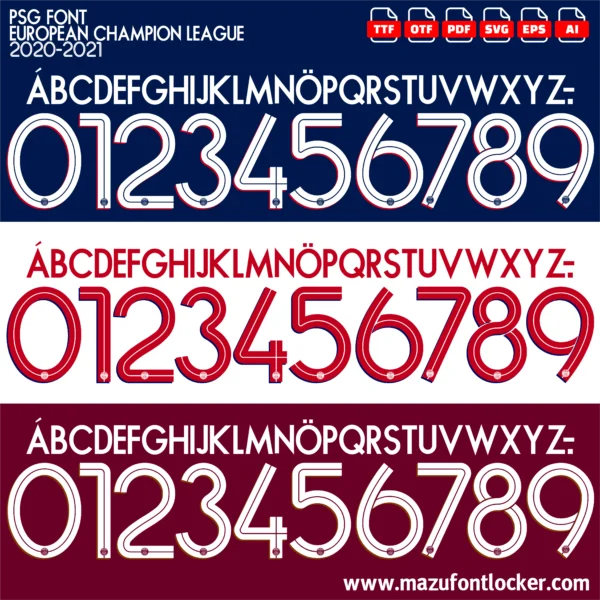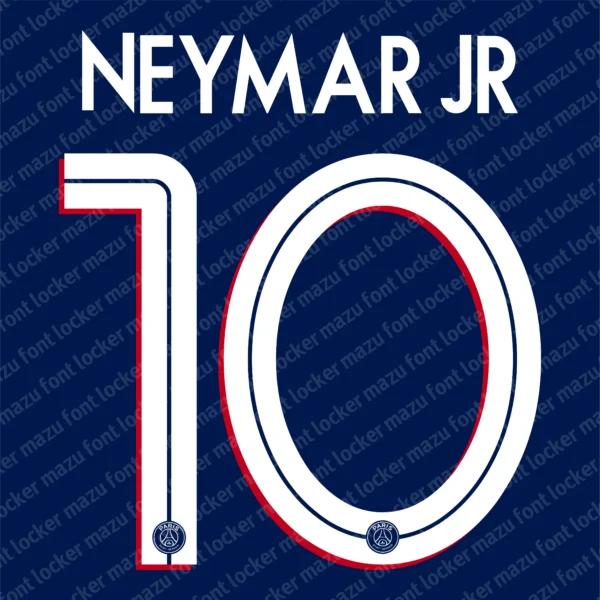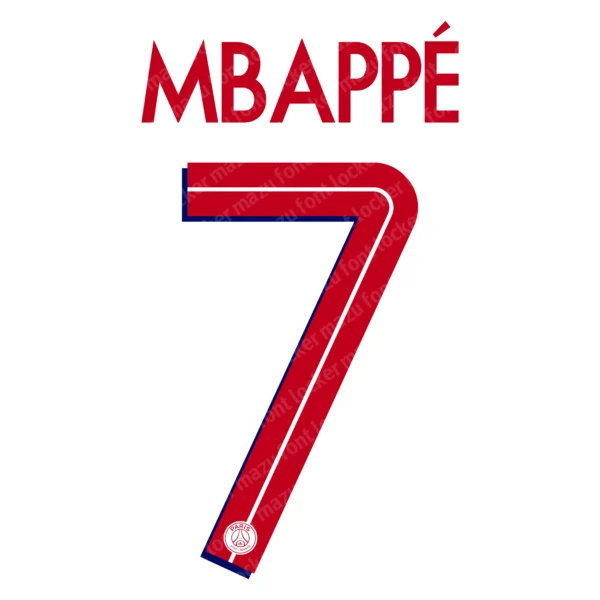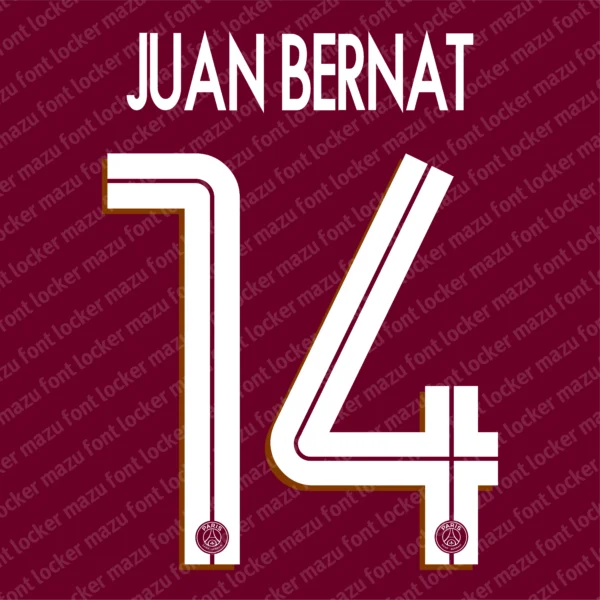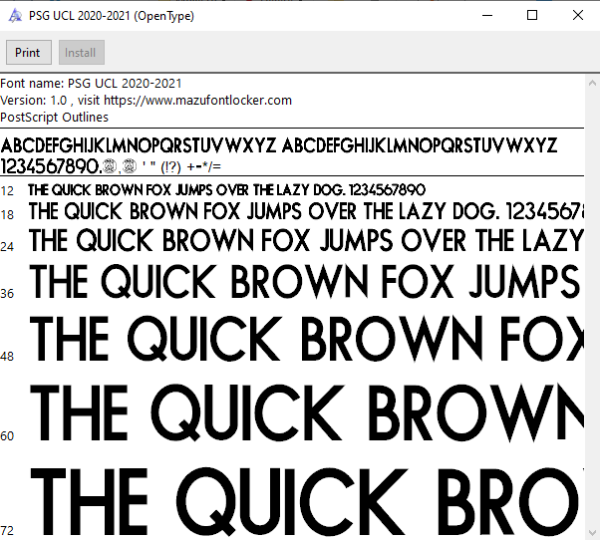
PSG UCL 2020-2021 Font Vector – Stunning Rouge-et-Bleu Masterpiece
This font captures the razor-sharp, thunderous lettering that embodies PSG’s proud club identity, rich French football heritage, iconic blue-and-red tradition, and unstoppable fighting spirit — delivering premium quality and explosive energy for jersey mockups, football graphics, sports branding, and fan creations.
PSG UCL 2020-2021 Font Vector – Parisian Champions League Heritage Typeface
The PSG UCL 2020-2021 Font Vector is a premium typeface that accurately recreates the official match lettering worn by Paris Saint-Germain during their 2020-2021 UEFA Champions League campaign. This high-quality vector font kit captures the bold, clean, and instantly recognizable typography that perfectly complements the club’s iconic blue, red and white identity.
Designed for professional designers, football enthusiasts, and passionate PSG supporters, the PSG UCL 2020-2021 Font Vector delivers exceptional authenticity for creating realistic jersey mockups, football merchandise, social media graphics, match posters, and custom fan artwork. Every character has been carefully recreated to match the powerful and precise visual style of one of Europe’s most ambitious and glamorous football clubs.
This font stands out thanks to its precise vector construction and authentic club-inspired styling. Every letter and numeral has been meticulously recreated to match the official shirt lettering used throughout the 2020-2021 UEFA Champions League season and associated campaigns. Whether you’re producing professional kit templates or creating eye-catching football content, the PSG UCL 2020-2021 Font Vector delivers a genuine match-ready appearance inspired by the proud identity of Les Parisiens.
The lettering featured in the PSG UCL 2020-2021 Font Vector combines clean geometric lines with powerful modern proportions. The result is a premium and highly readable typeface that reflects Paris Saint-Germain’s fighting spirit, attacking football, resilience, and proud European ambitions.
- Complete uppercase A–Z alphabet and numbers 0–9 in authentic PSG UCL 2020-2021 style
- Special PSG badge glyph – Press the “:” (Colon) key to insert the club crest
- Create authentic PSG UCL 2020-2021 jersey mockups
- Produce custom Paris Saint-Germain-inspired merchandise and fan projects
- Recreate the distinctive look of PSG player names and squad numbers for creative projects
The 2020-2021 season marked another exciting chapter for Paris Saint-Germain as the club continued its pursuit of European glory in the UEFA Champions League. Competing in high-profile matches against Europe’s elite while preparing for domestic success, PSG once again showcased its iconic kit on the international stage.
The PSG UCL 2020-2021 Font Vector is an independently designed typeface package inspired by the official shirt lettering associated with the 2020-2021 UEFA Champions League campaign. It has been carefully recreated for football enthusiasts, graphic designers, collectors, and creators producing custom jersey concepts, football artwork, and fan-made projects. Please note that this is a fan-made design resource and is not an official product of Paris Saint-Germain, Ligue 1, UEFA, or any associated organization.